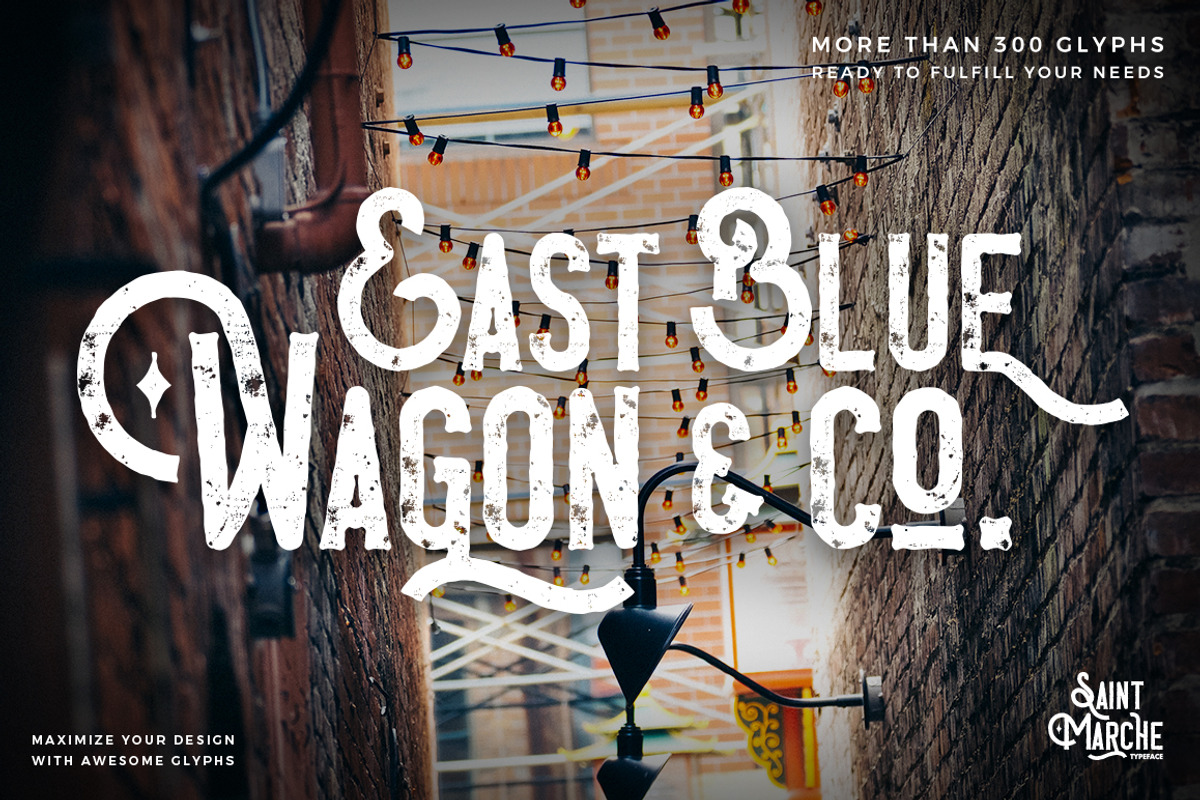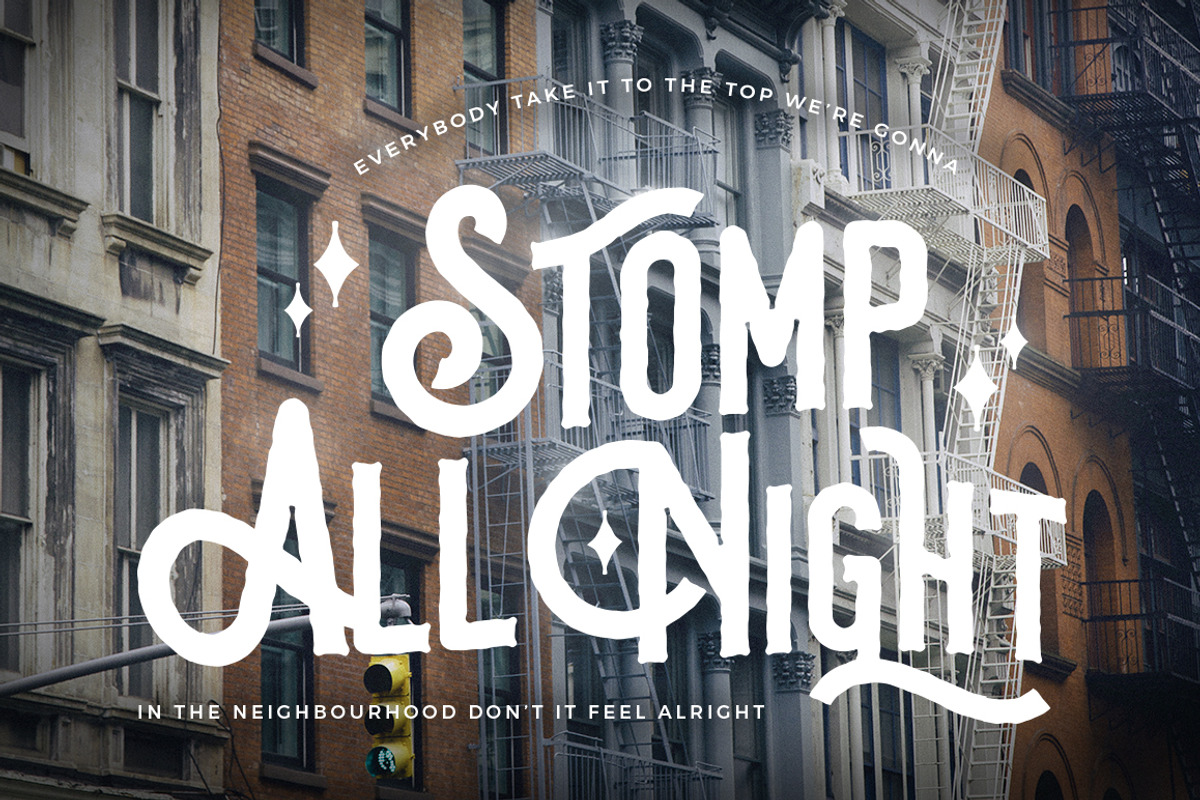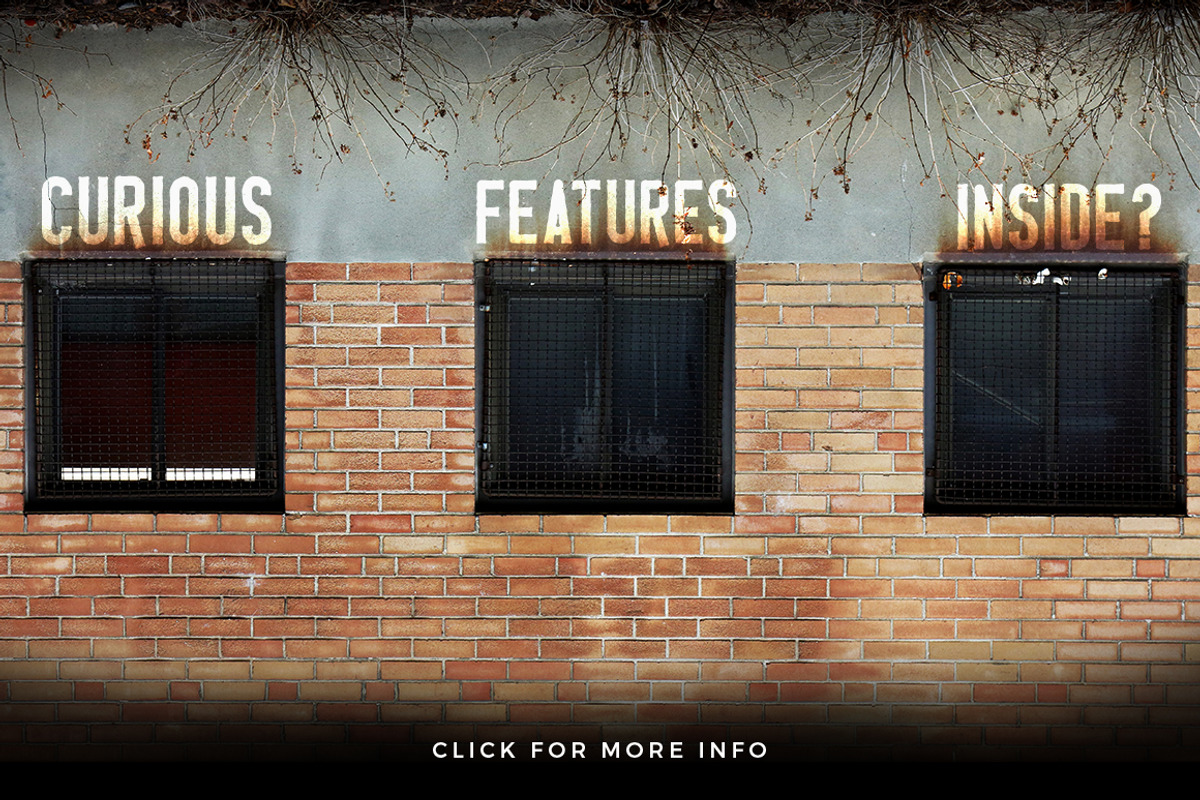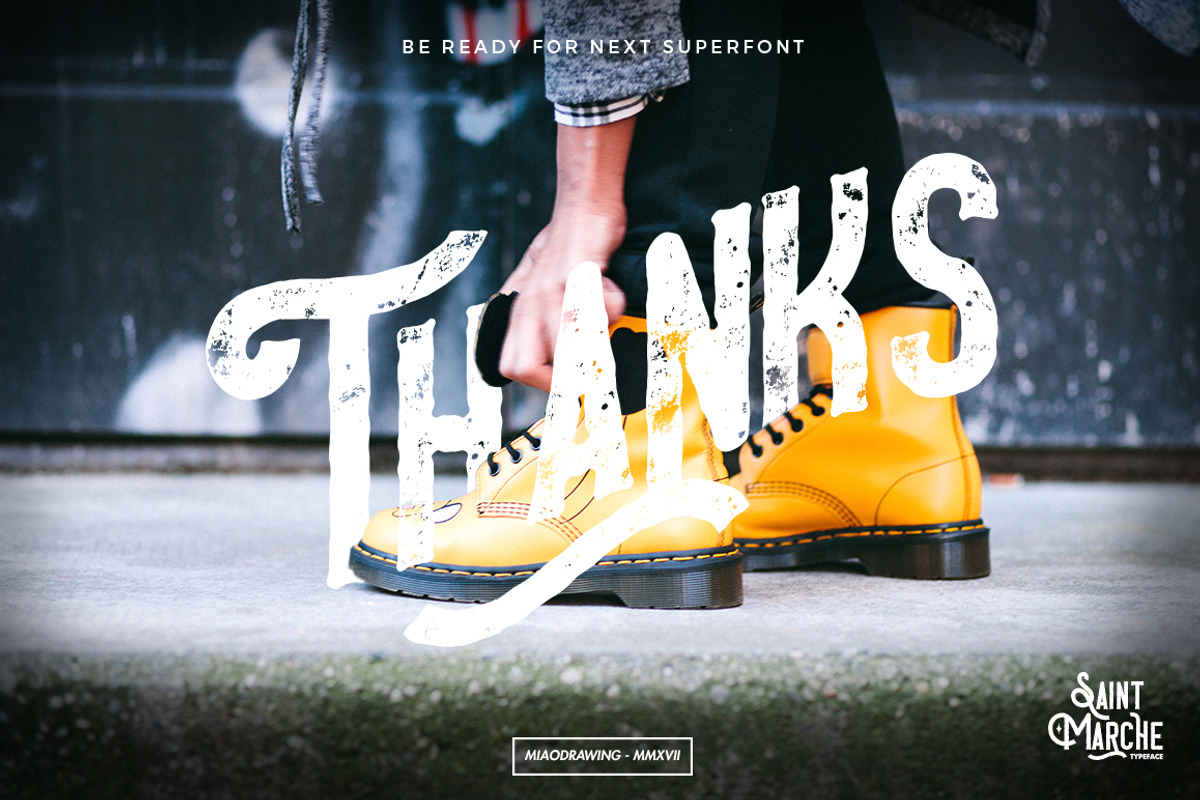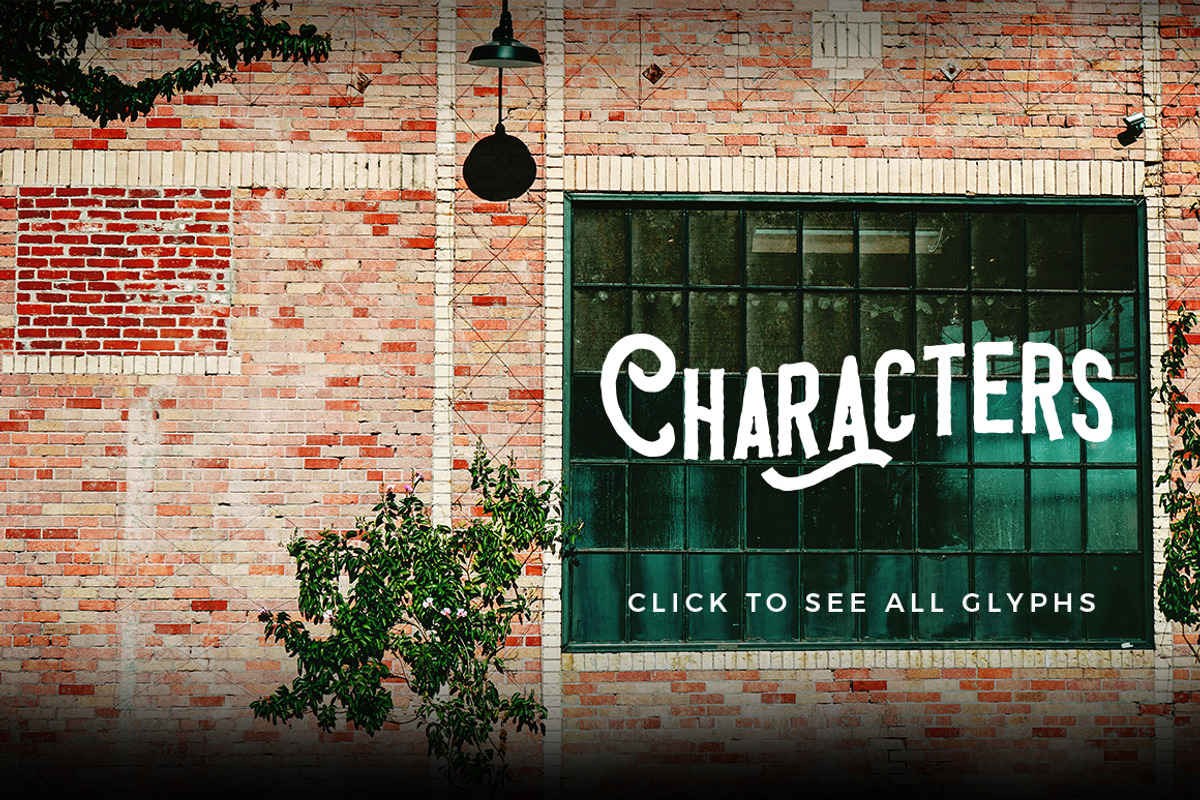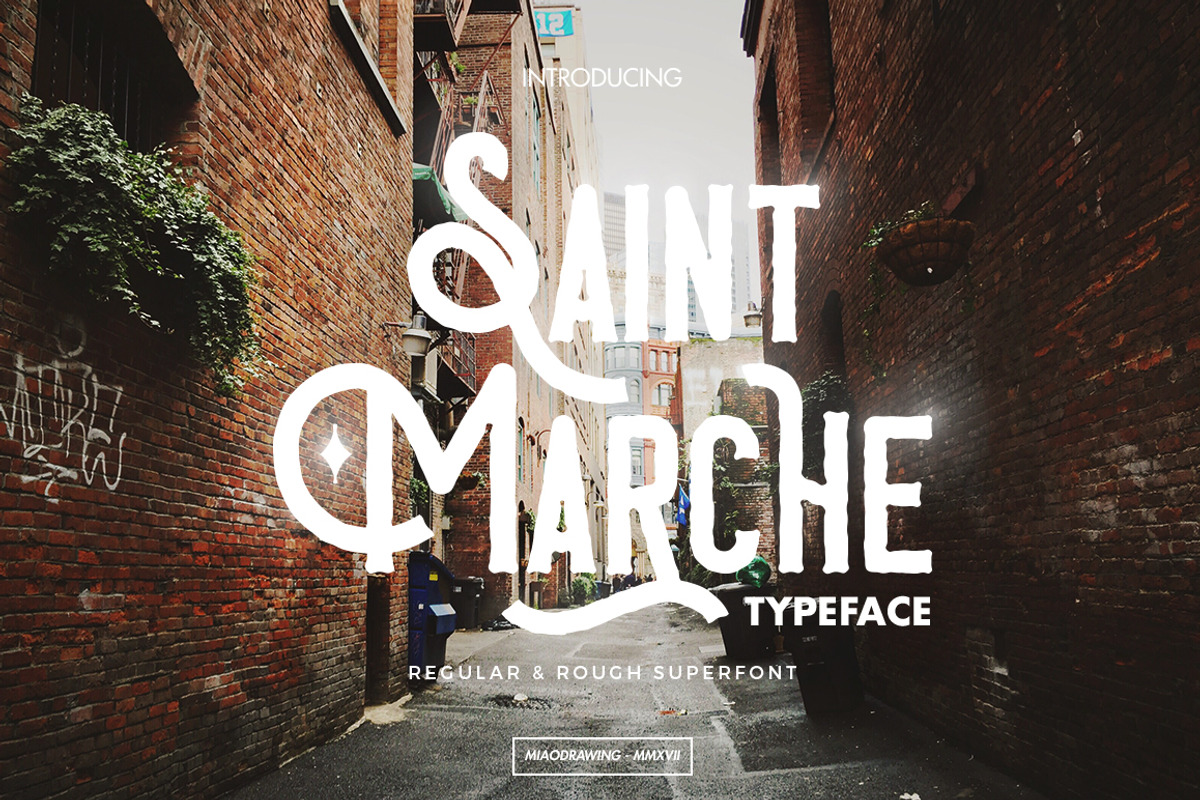
Saint Marche Typeface
Saint Marche Typeface by Gumico Studio. is a font selected for branding, posters, packaging, typography.
Why Saint Marche Typeface is worth a look
Saint Marche Typeface by Gumico Studio. fits naturally into Branding, posters, packaging, typography.